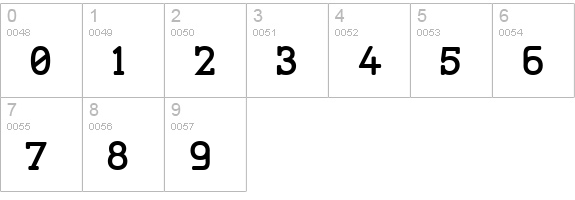
Street Corner Slab Bold Font Details
Street Corner Slab Bold is a strong, high-contrast variant in the Street typeface family \xE2\x80\x94 well suited to headlines, attention-grabbing titles, and strong calls-to-action.
Street Corner Slab Bold font is a bold and impactful typeface designed for eye-catching headlines and attention-grabbing designs. Its strong geometric shapes and sturdy slab serifs make it perfect for conveying a sense of strength and solidity in your projects. The font exudes a modern and urban aesthetic, making it ideal for use in branding, posters, and editorial design. What's even better is that Street Corner Slab Bold font is available for free download at FontsMarket.com. You can easily access this versatile and stylish font to elevate your creative projects with a touch of bold sophistication. Don't miss out on the opportunity to enhance your designs with this striking typeface that commands attention and leaves a lasting impression.